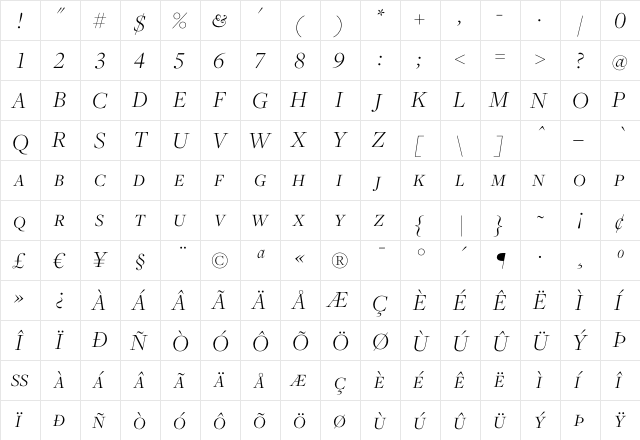
Freight Disp Light Italic SC
| Foundry | Joshua Darden & Phil's Fonts, Inc |
| Designer | Joshua Darden |
Design Context for Freight Typeface
Freight is a composed and adaptable typeface that performs quietly and consistently across a wide range of design contexts. The dynamic lean of this cut emphasises speed and emphasis in any layout. Its slender proportions lend an understated elegance to any composition.
Pro Tip: Use Freight for emphasis, pull quotes, and subheadings where its slanted energy can add rhythm to the layout.